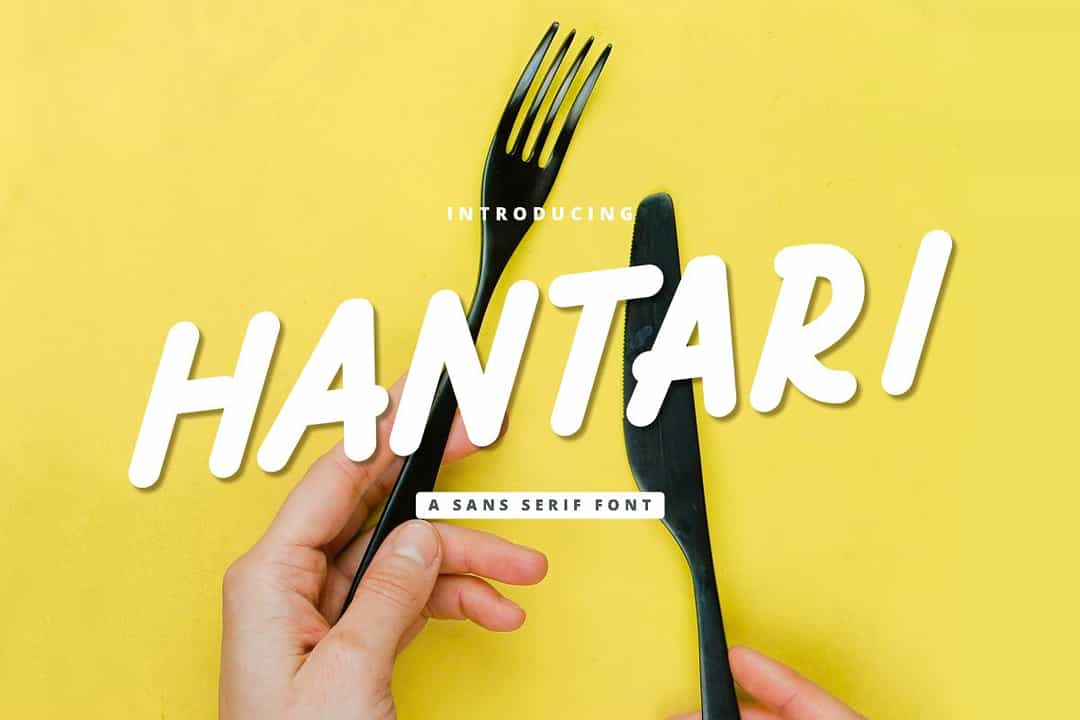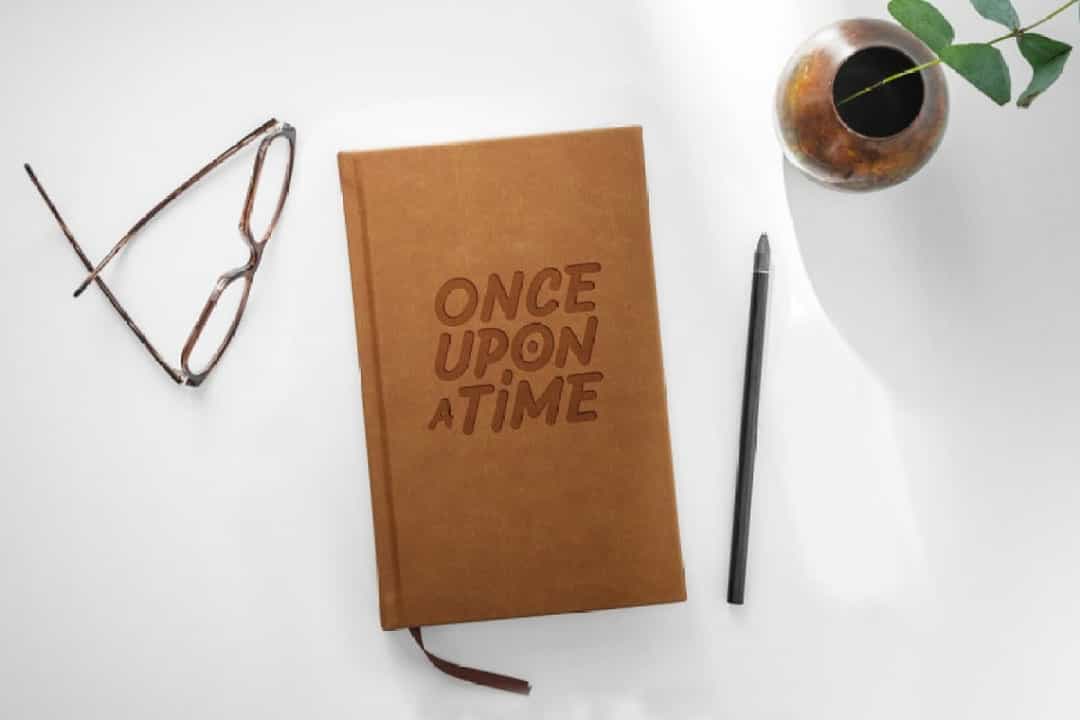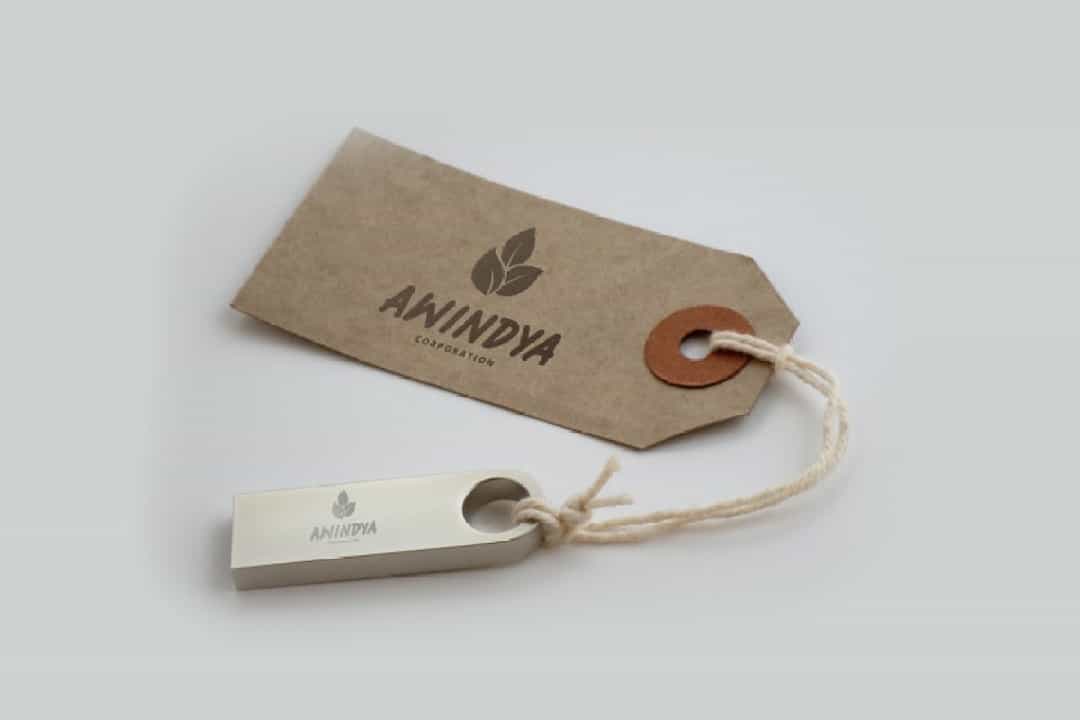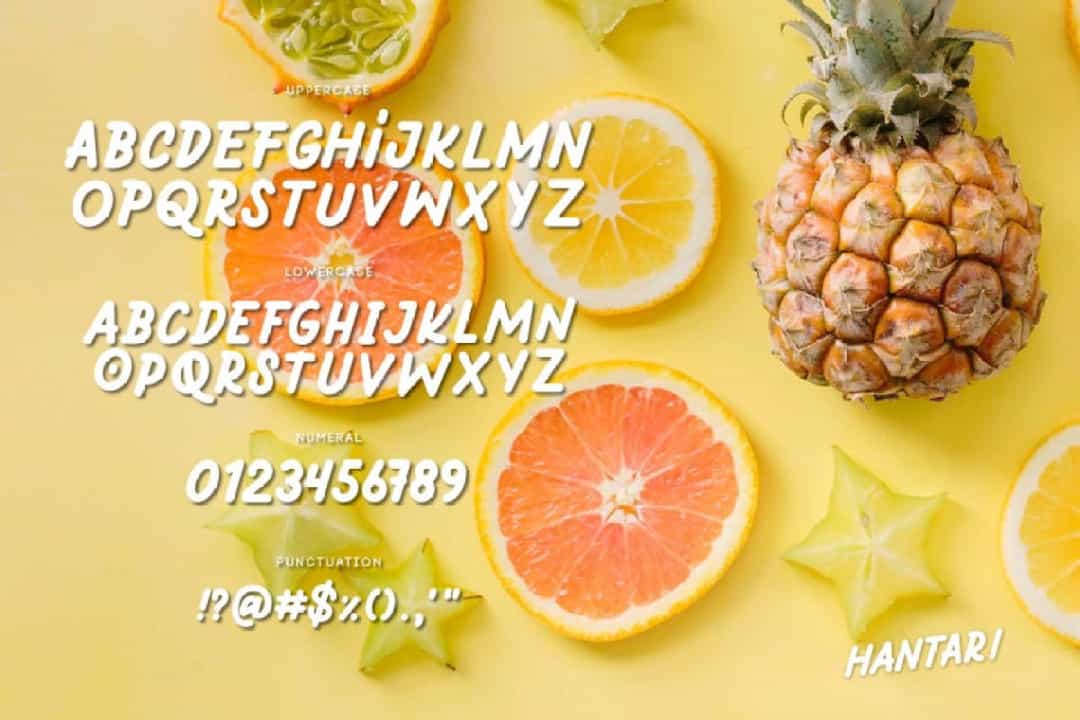
Hantari is an sans serif typeface made to look attractive in all-caps styles and in sentence cases. In addition to the standard letters it comes with helpful punctuation marks and symbols. It also is multilingual and supports Western European languages.